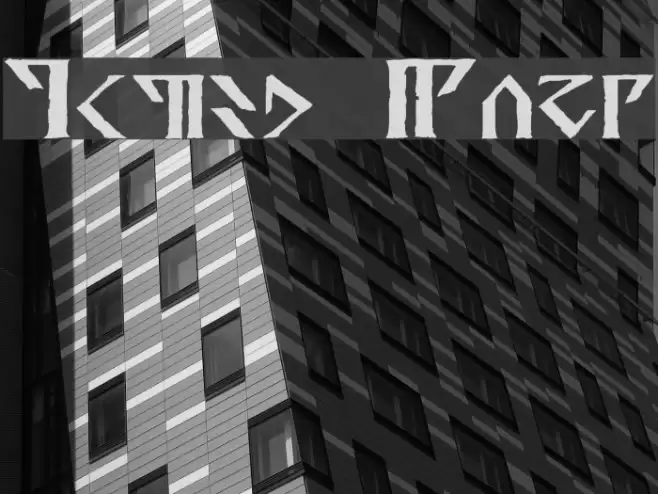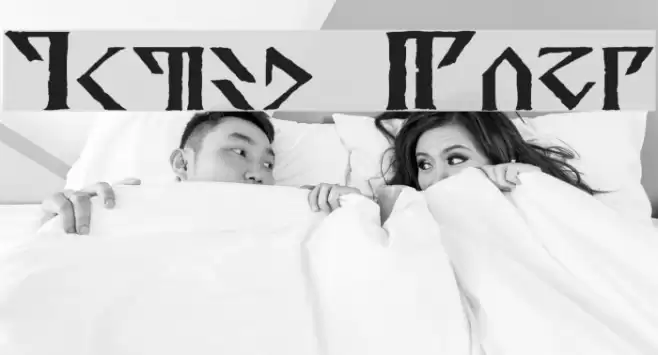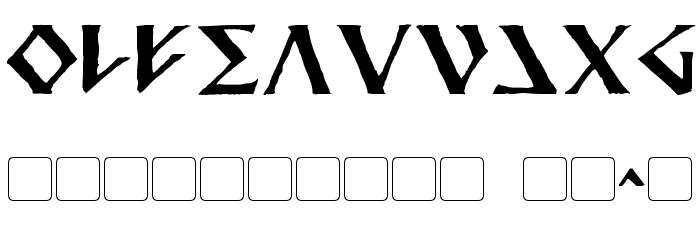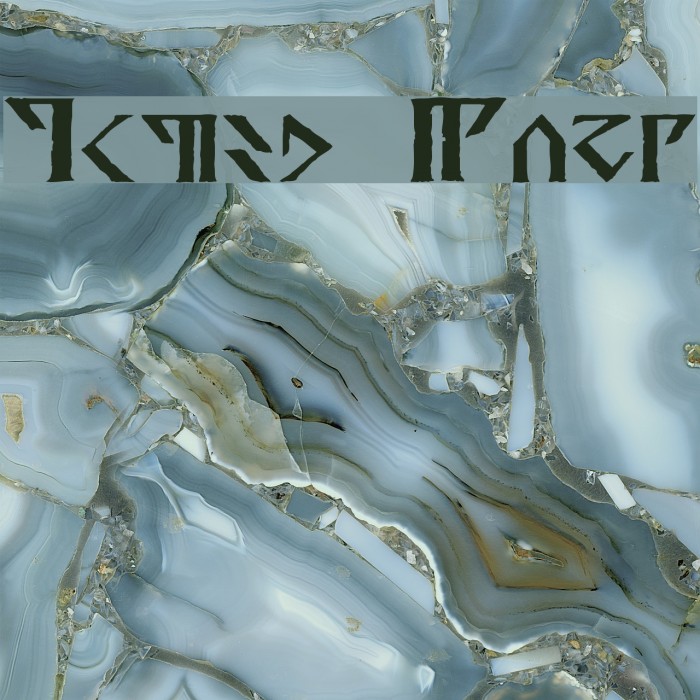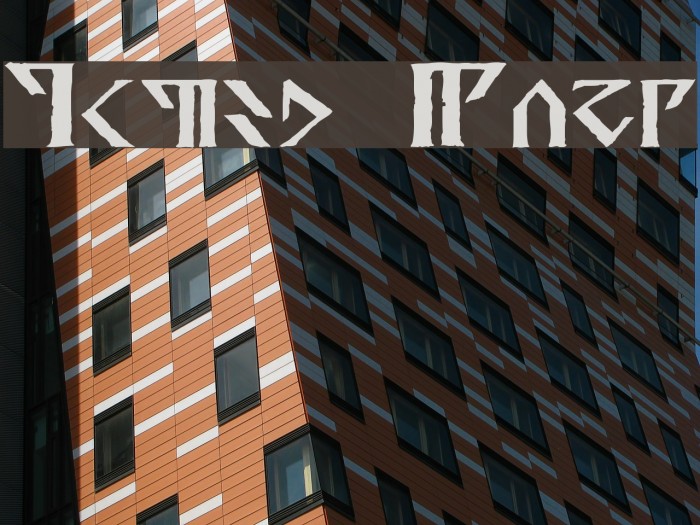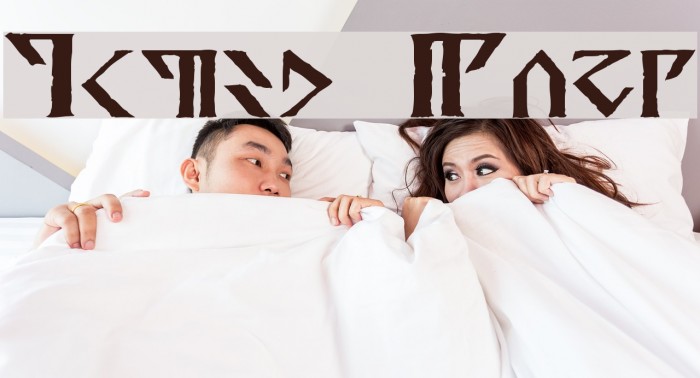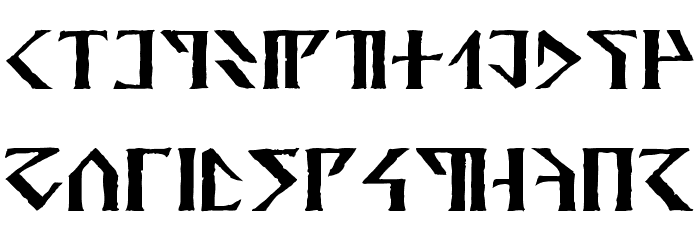
Davek Font
Davek Description
This font features a bold and angular design, reminiscent of ancient runic or tribal scripts. The characters are constructed with sharp, geometric lines and a slightly distressed texture, giving them a rugged and edgy appearance. The uppercase letters are particularly striking, with a consistent height and width that create a uniform look. The lowercase letters maintain the same angular style, ensuring cohesion across the typeface. Numbers and special characters are designed to match the overall aesthetic, making this font suitable for thematic projects. The unique style is eye-catching and can add a dramatic flair to any design.
A bold, angular font with a runic, tribal aesthetic and distressed texture from Uncategorized fonts.
- Proposed Projects: Ideal for fantasy-themed designs, video game graphics, movie posters, or branding for edgy, alternative products.